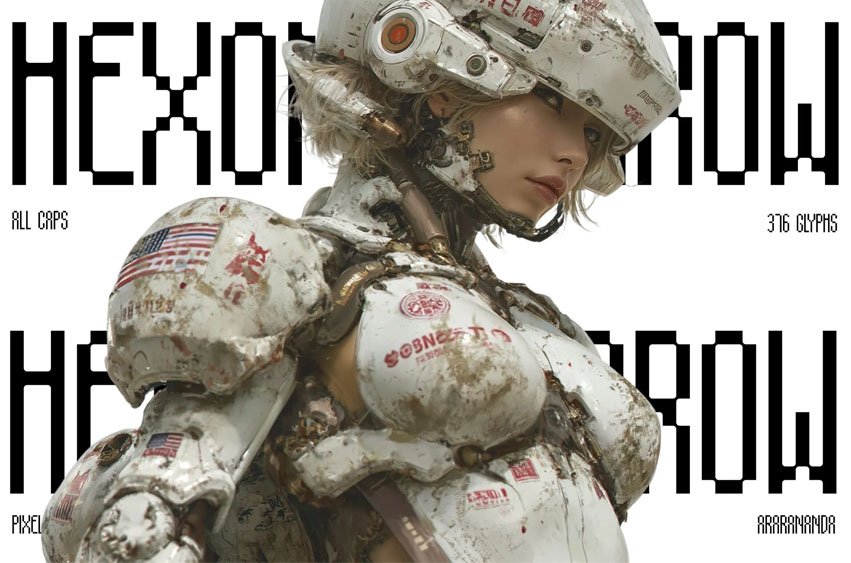
Hexon Narrow Font
Hexon Narrow Font is a high-impact display font built for bold visual statements and futuristic design aesthetics. With its condensed structure, sharp geometry, and clean digital edges, this typeface is designed to dominate headlines, posters, and branding compositions that demand attention.
Inspired by cyberpunk visuals and modern sci-fi interfaces, Hexon Narrow delivers a strong, aggressive tone while maintaining clarity and readability in large-scale applications. Perfect for tech branding, gaming visuals, and experimental layouts that lean into a digital, next-gen identity.
This font includes a complete set of uppercase characters and an extended glyph collection, giving designers flexibility to push creative boundaries while staying consistent across projects.
• 316 glyphs
• All caps character set
• Multilingual support